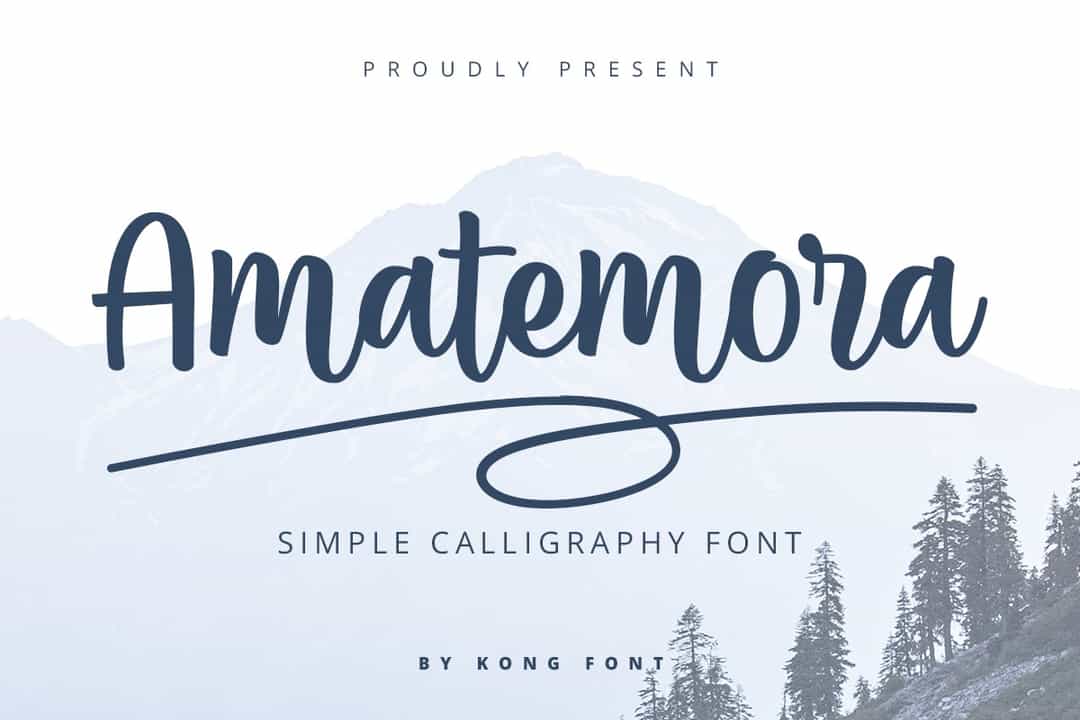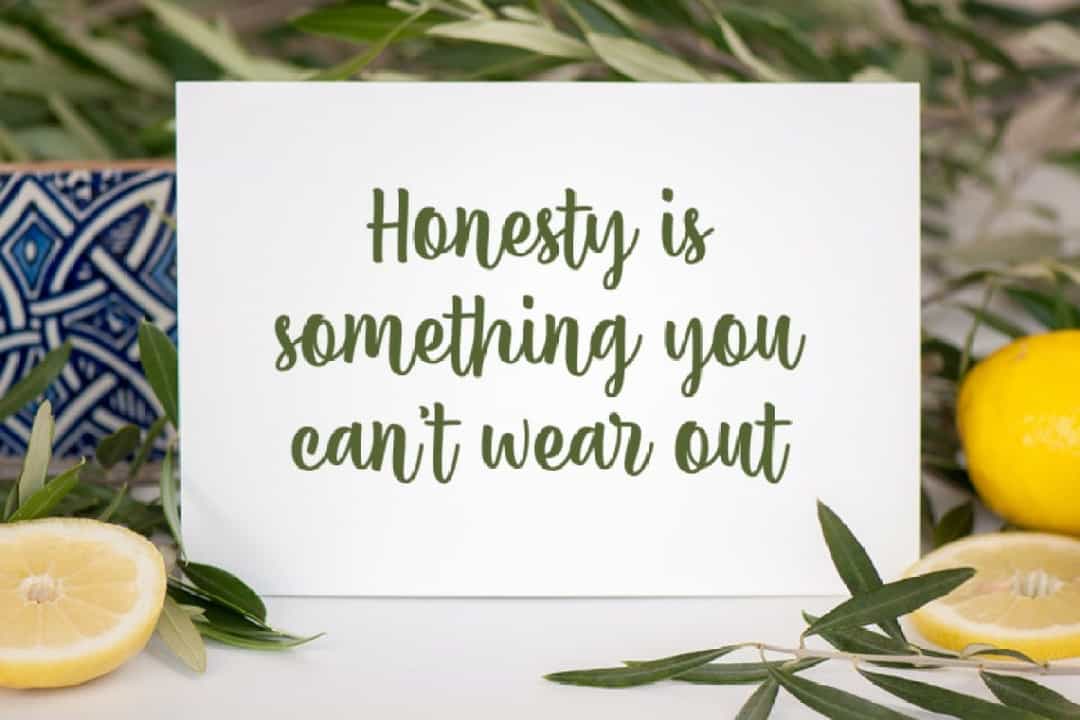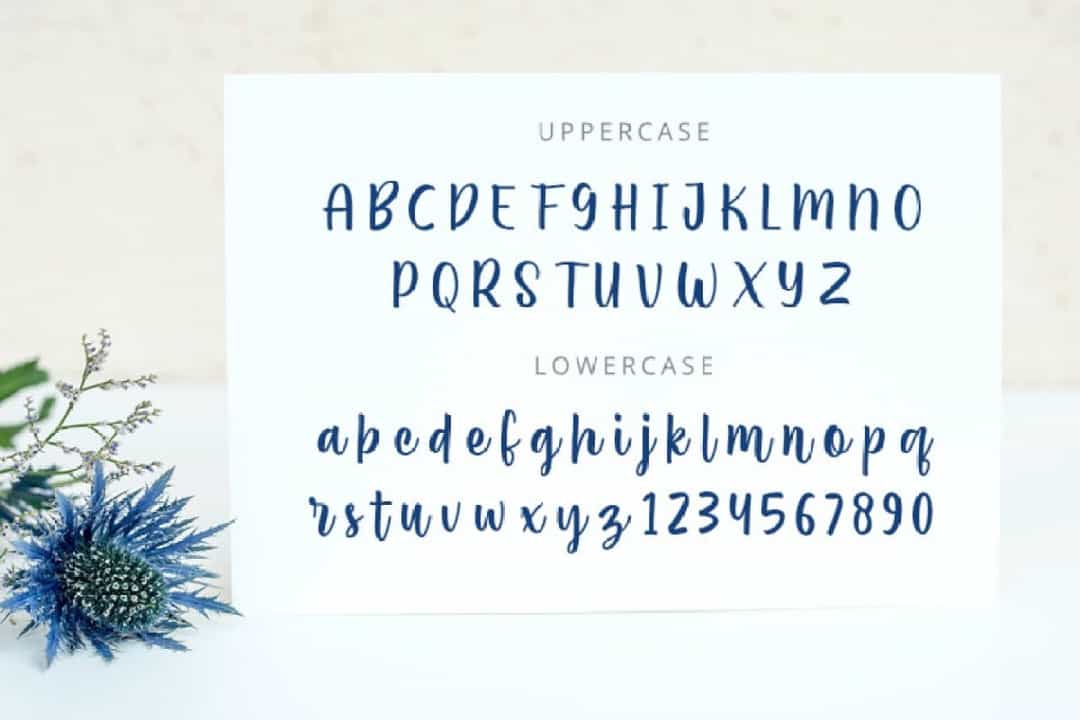
Amatemora Font is an elegant but quite ordinary handwritten font with a certain hieratic look, which enables the user to swap letters to create so called typography (headlines). Amatemora font looks very presentable and timeless, thus it can be considered both stylish and versatile for various tasks; however, it is not overly complex for reading.